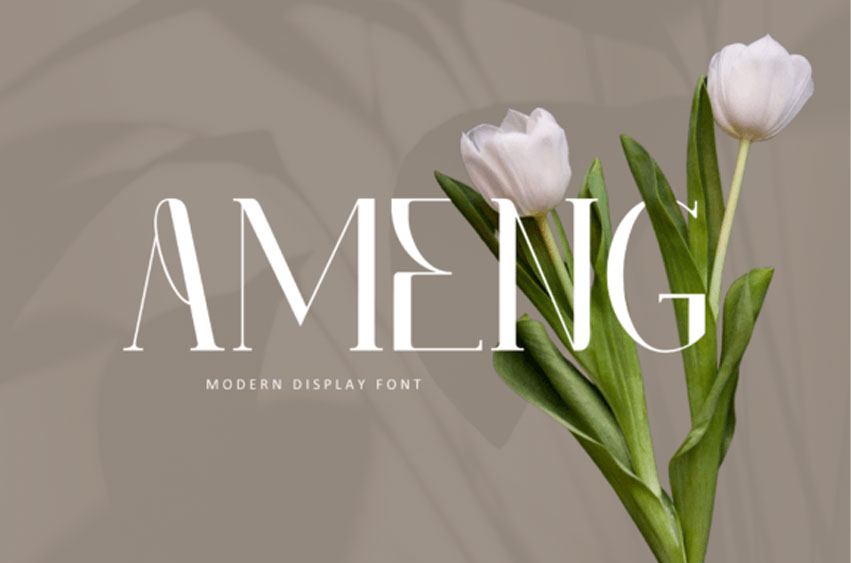
Ameng Font is a serif font with elegant & stylish curves. It is romantic, classy, and modern all wrapped into one, and surely can not be missed in your font collection.
Ameng offers beautiful typographic harmony for a diversity of design projects, including logos & branding, social media posts, advertisements & product designs.